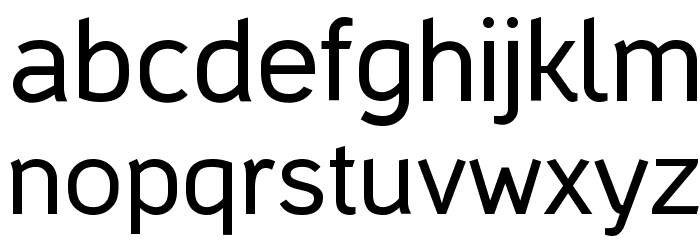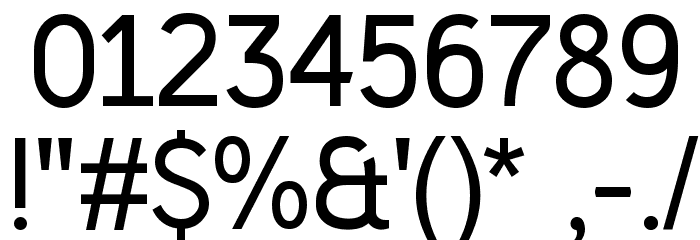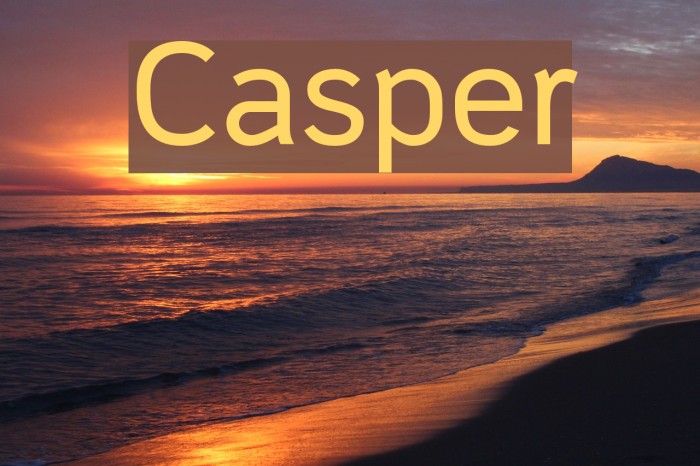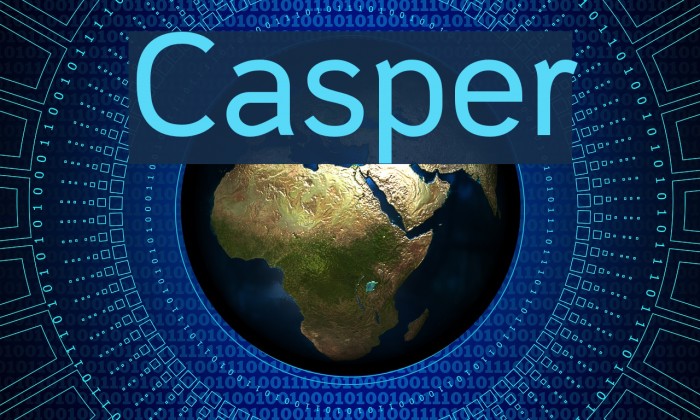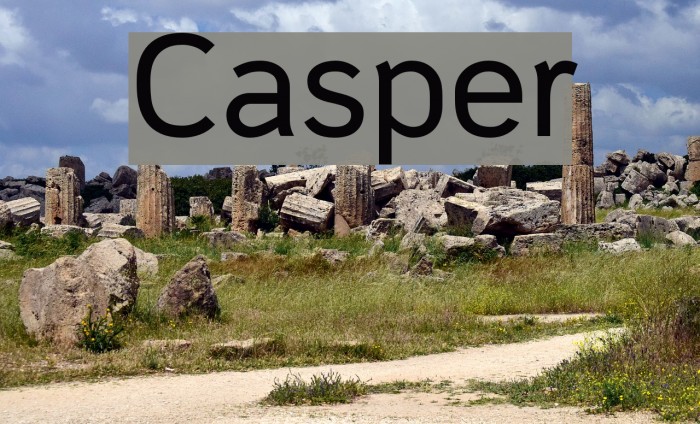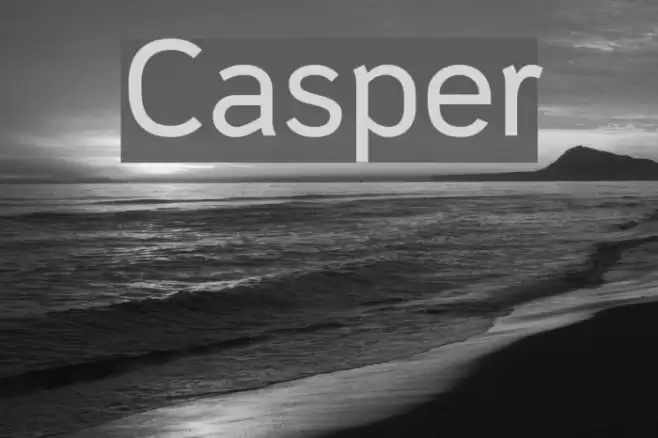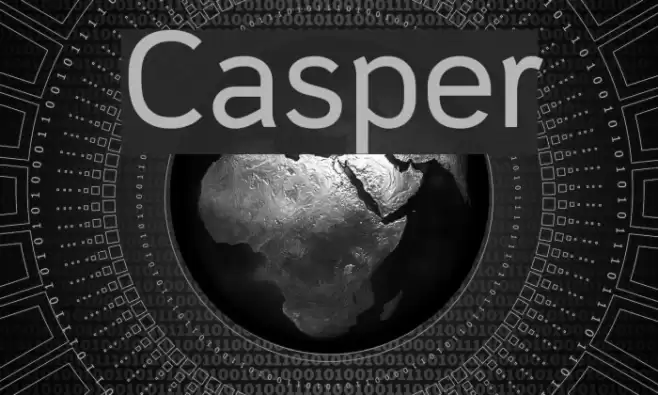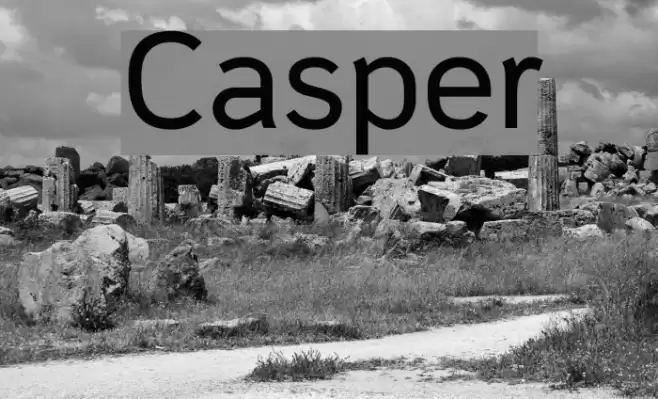
Casper Font
This typeface features a clean and modern sans-serif design, characterized by its simplicity and clarity. The letters are evenly spaced, with a uniform stroke width that provides a balanced and harmonious appearance. The uppercase characters are bold and assertive, while the lowercase letters maintain a friendly and approachable feel. The numerals are clear and easy to read, making them suitable for various applications. Special characters are well-defined, adding to the font's versatility. Overall, this font exudes a contemporary and professional vibe, making it ideal for digital and print media.
A modern, clean sans-serif font with balanced proportions and clear readability.
- Proposed Projects: Ideal for corporate branding, website design, digital media, and print materials.